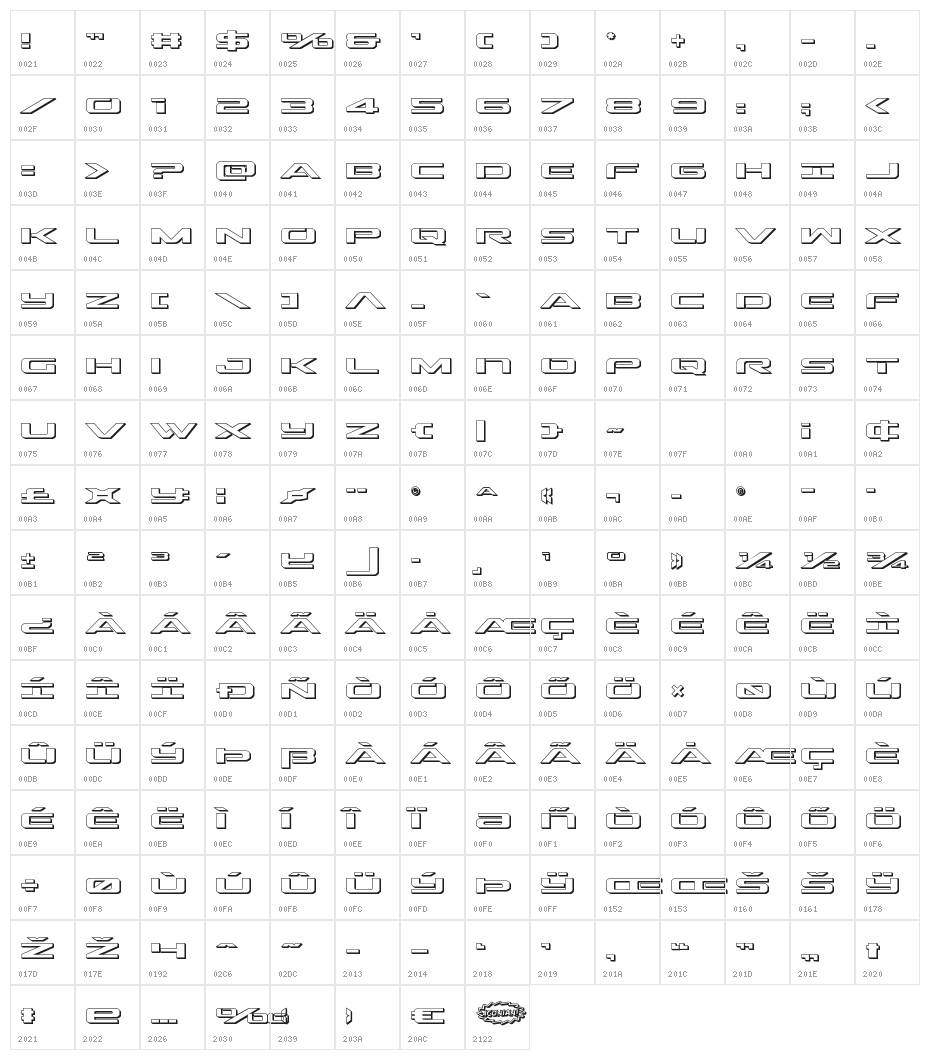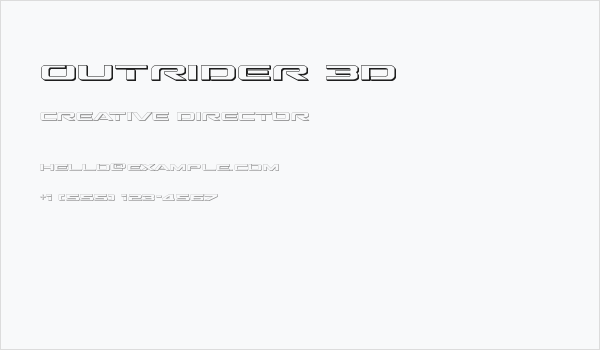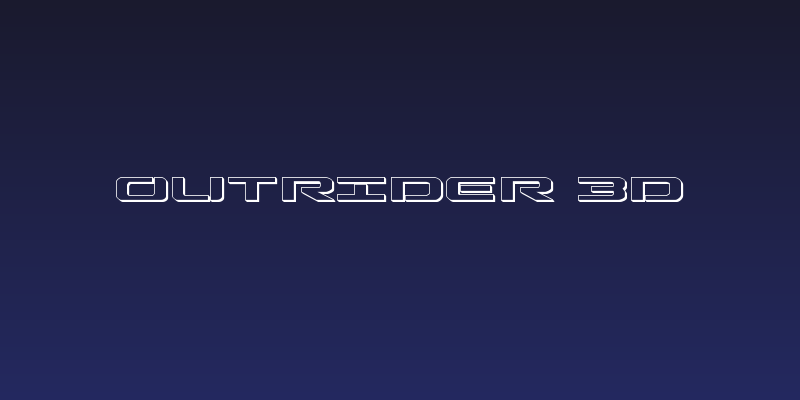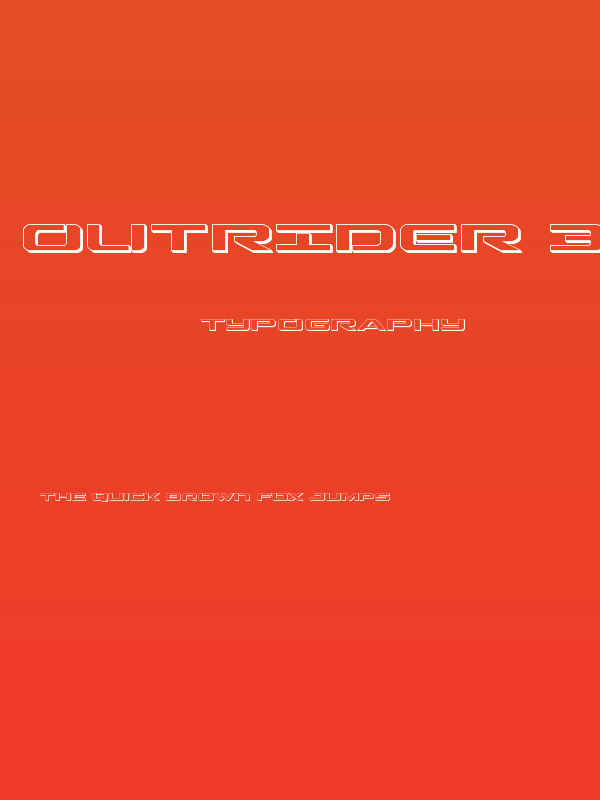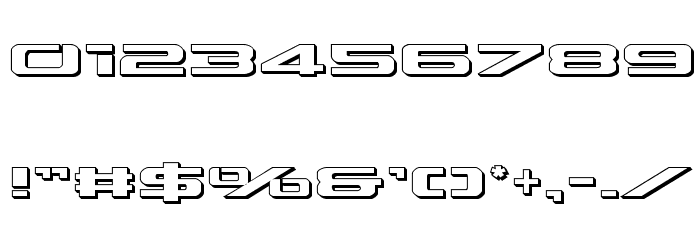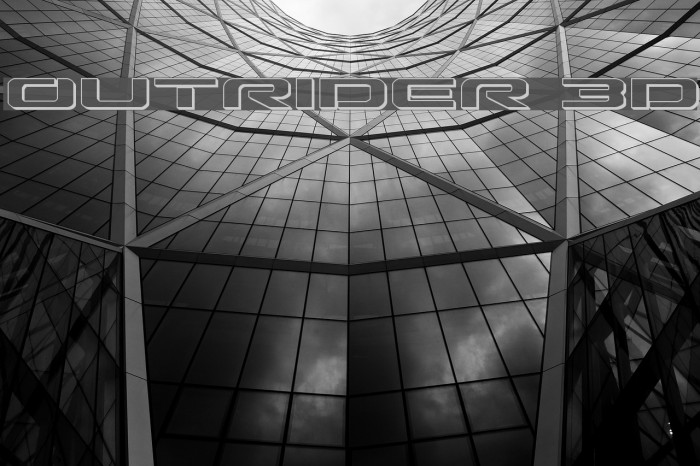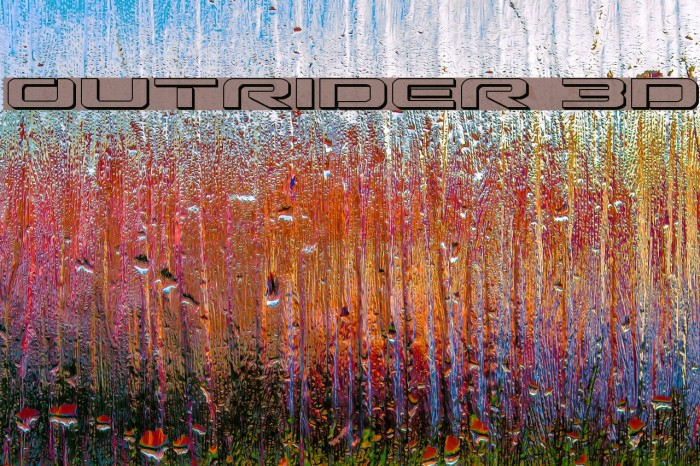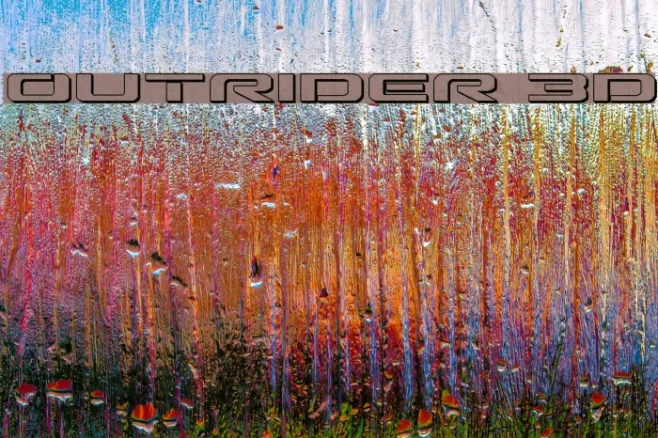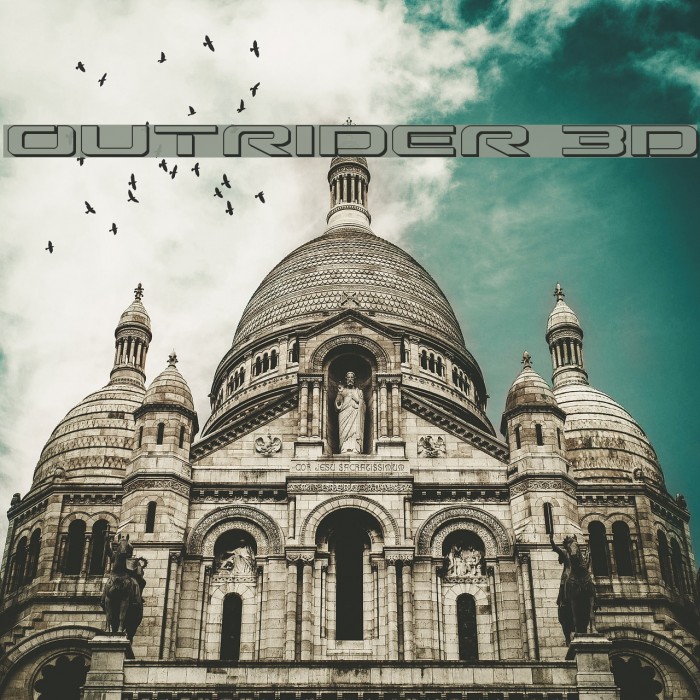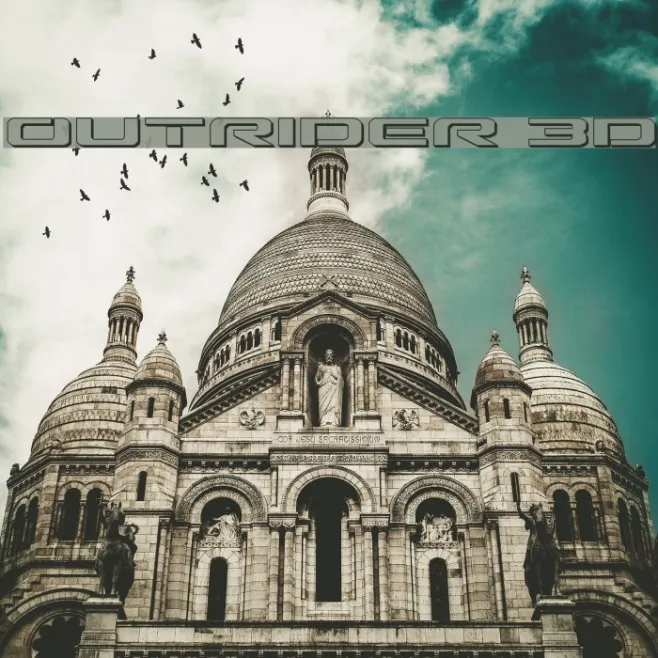
Outrider 3D Font
Outrider 3D Description
This font features a bold, futuristic design with a three-dimensional effect that gives each character a distinct, shadowed appearance. The uppercase and lowercase letters share a similar geometric style, emphasizing sharp angles and clean lines. The numerals and special characters maintain this cohesive look, ensuring uniformity across all glyphs. The font's structure is reminiscent of digital or sci-fi themes, making it ideal for projects that require a modern and tech-savvy aesthetic. Its unique outline and shadowing create a sense of depth, adding visual interest without compromising readability.
| Proposed Projects | Ideal for sci-fi themed projects, tech branding, video game titles, and futuristic posters. |